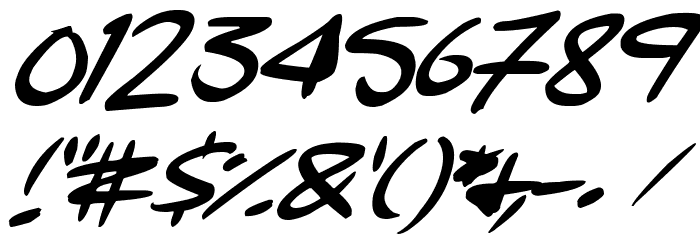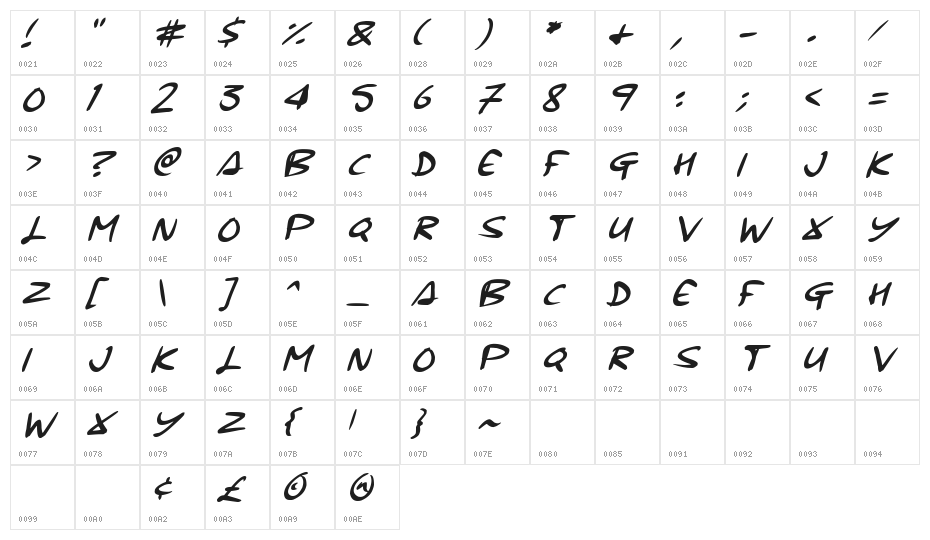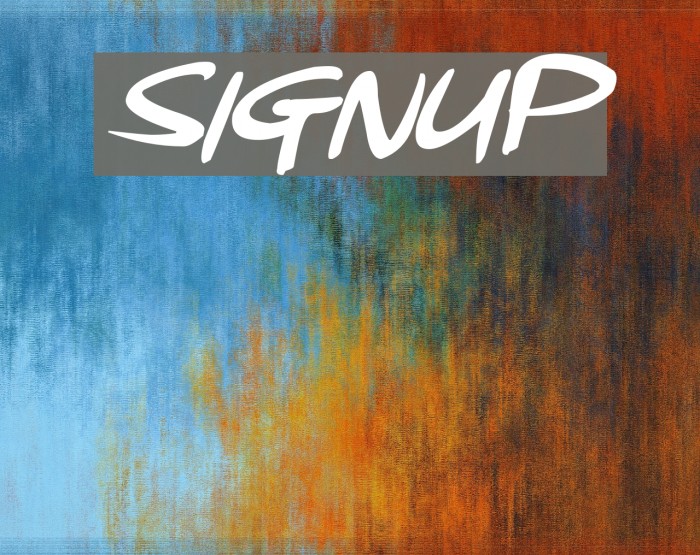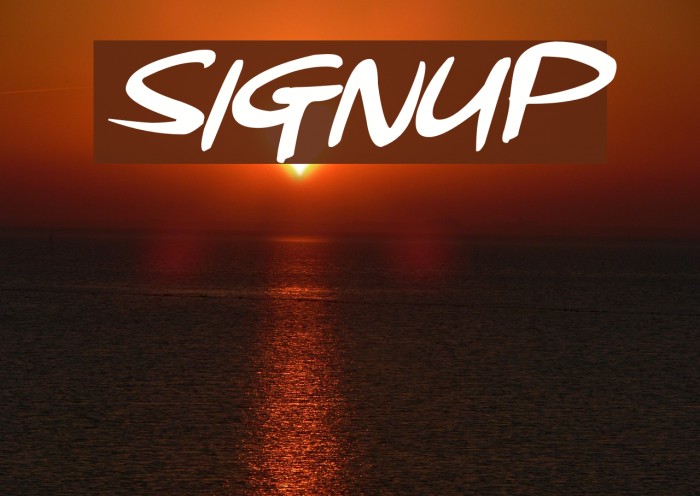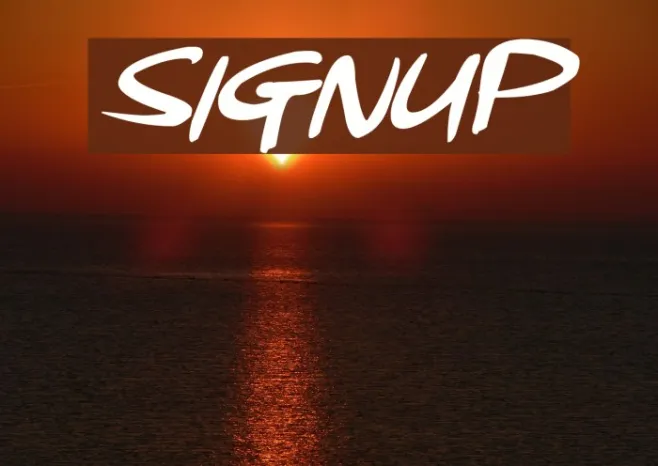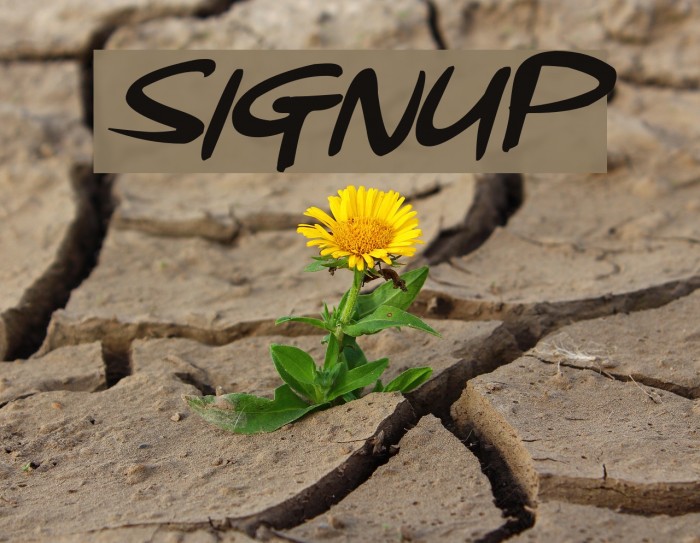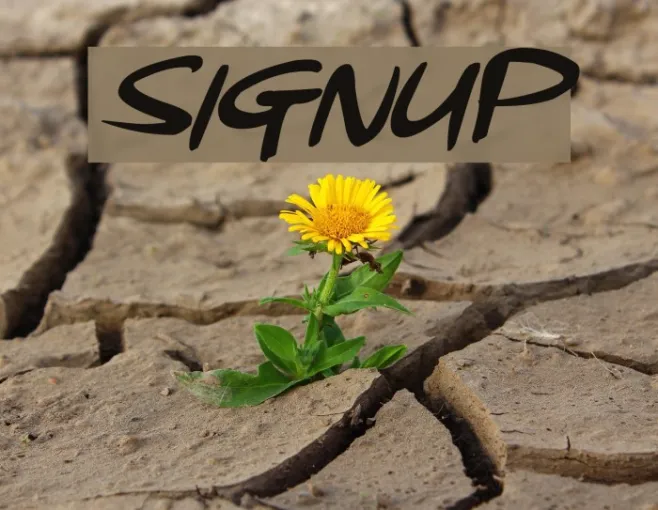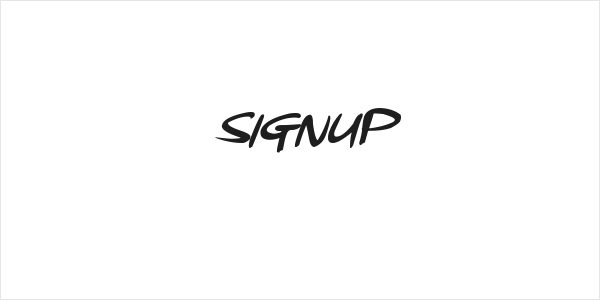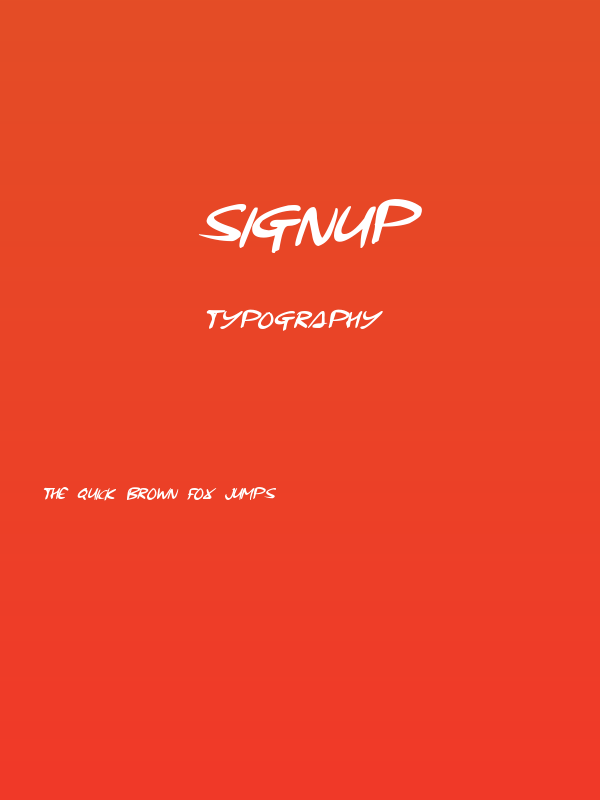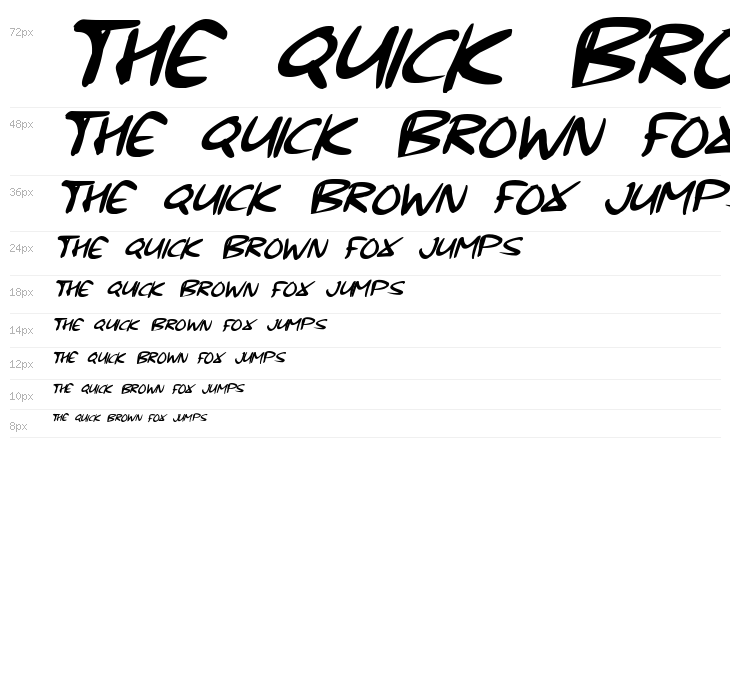
Signup Font
Signup Description
This font exhibits a dynamic and energetic handwritten style, characterized by its fluid and slightly slanted letterforms. The strokes are bold and expressive, with a consistent thickness that gives the font a strong presence. The uppercase and lowercase letters maintain a cohesive look, with rounded edges and smooth curves that enhance readability. The numerals and special characters follow the same stylistic approach, ensuring uniformity across all glyphs. This font's lively and informal appearance makes it suitable for projects that require a personal touch or a sense of movement.
| Proposed Projects | Ideal for branding, posters, social media graphics, and any design needing a personal, energetic touch. |